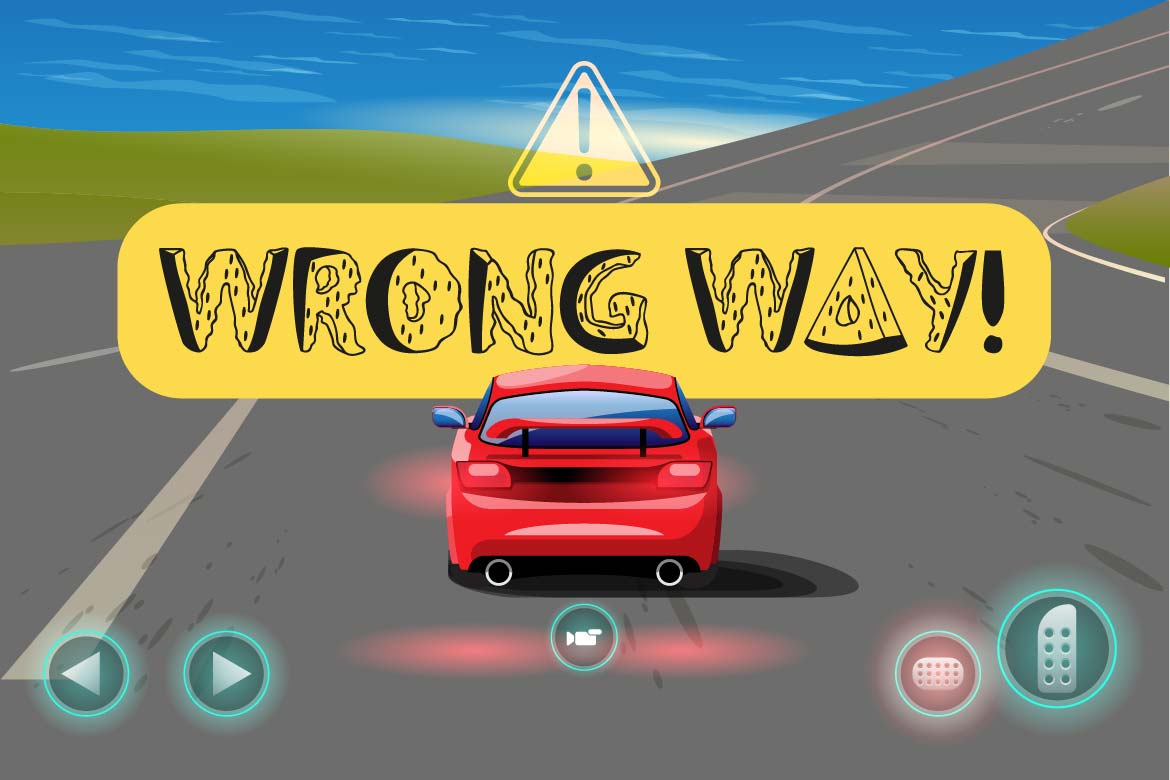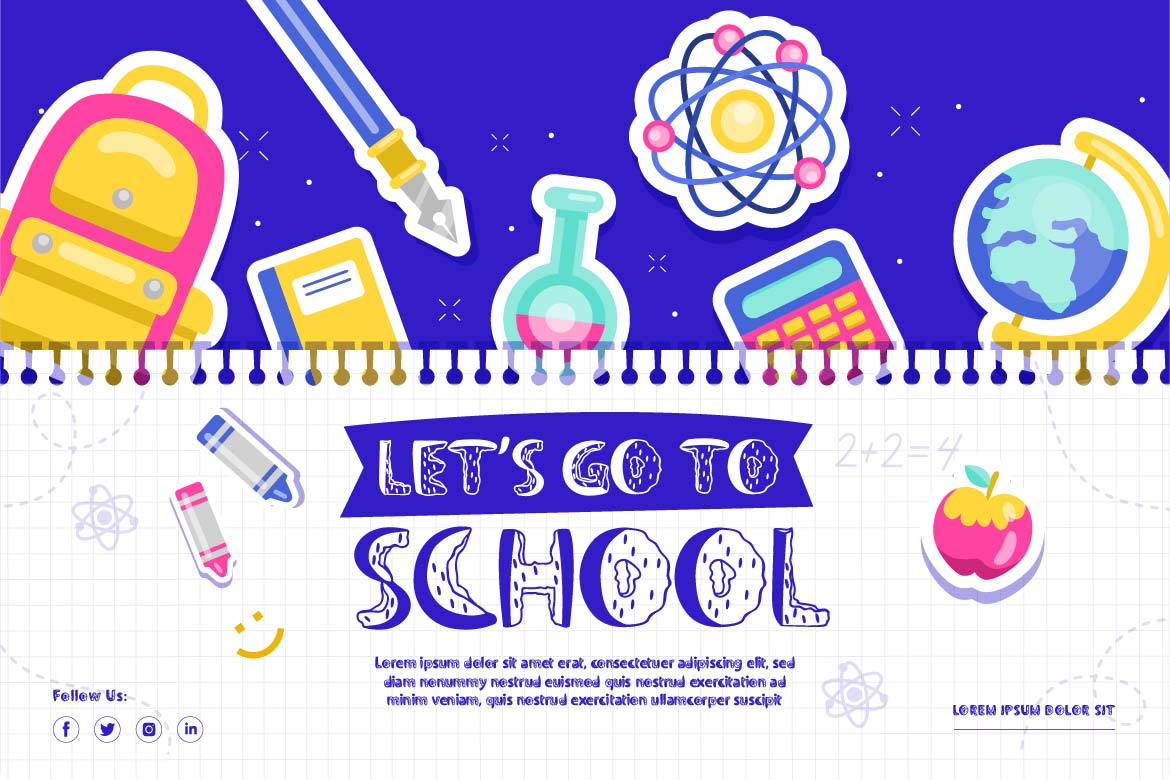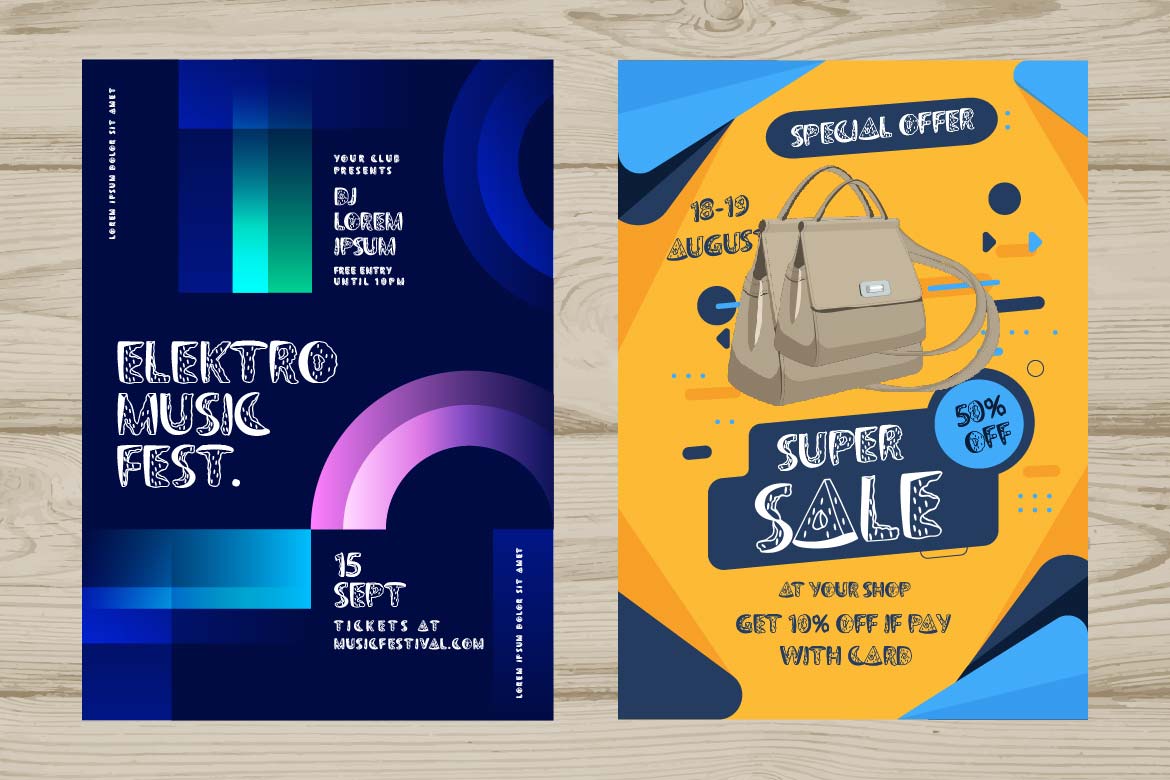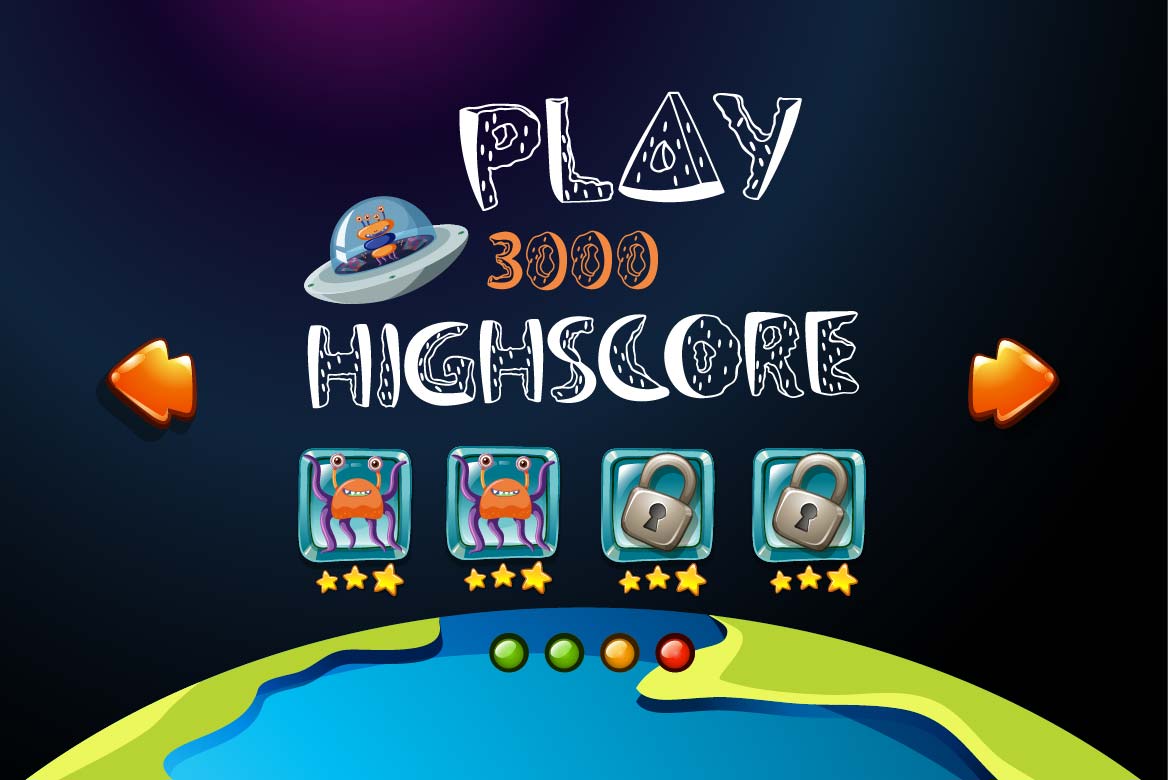
Semanko Font
Semanko Display Font
This is a lively display typeface with a unique and appealing shape, created with individuality in each letter to make this font really special for your specific project.
This typeface can be used to produce projects with a stylish and unique graphic display, both for title text and other purposes. It can be used for children, youth, and adult-themed themes.
This font is perfect for games, sporting events, branding, banners, posters, movie titles, book titles, quotes, logotypes, and more. Start using our fonts for your amazing projects.